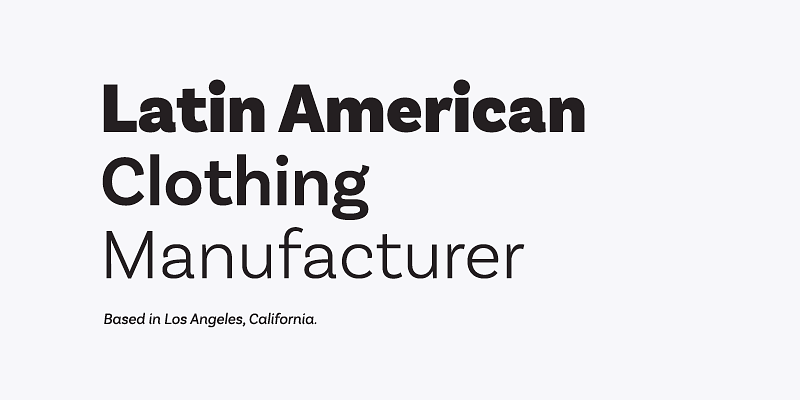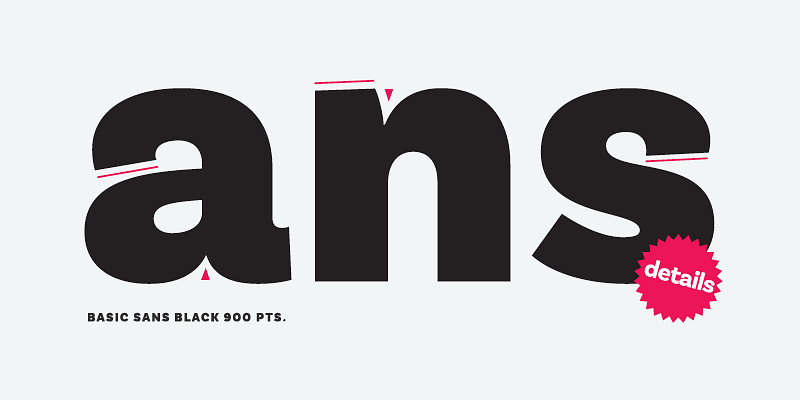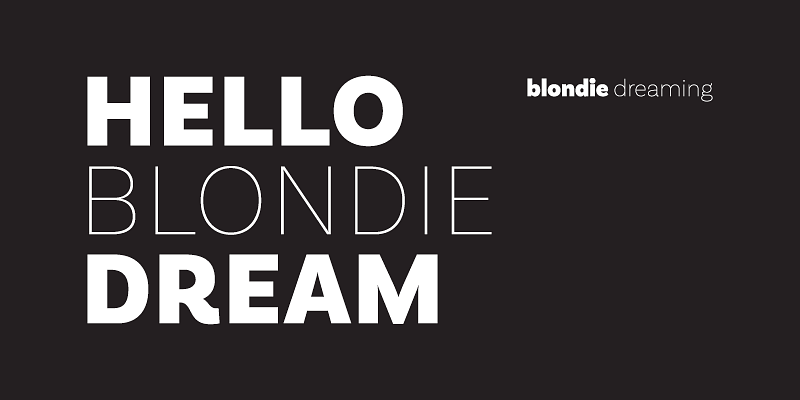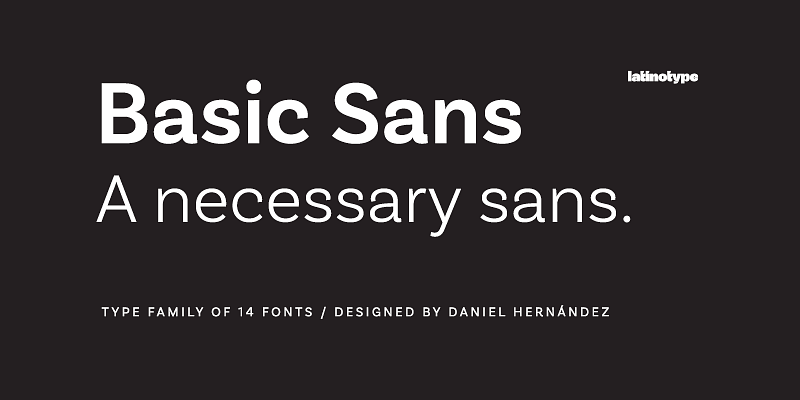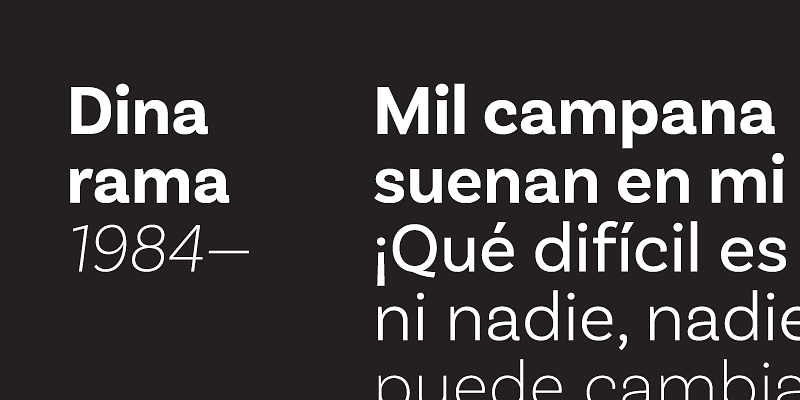
A family of Grotesque features with a functional, neutral and seeming clean style that looks to keep a neutral appearance on paper, but including lots of details that give it a unique personality.